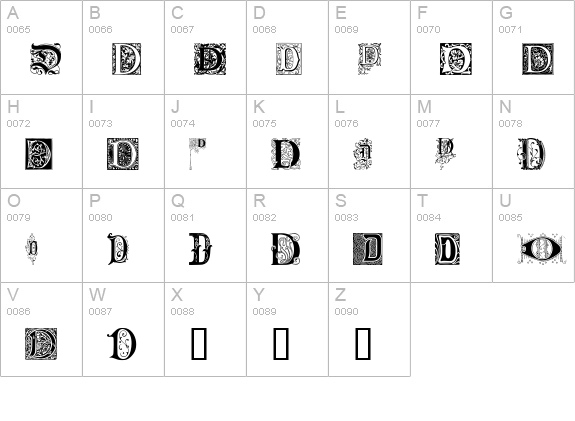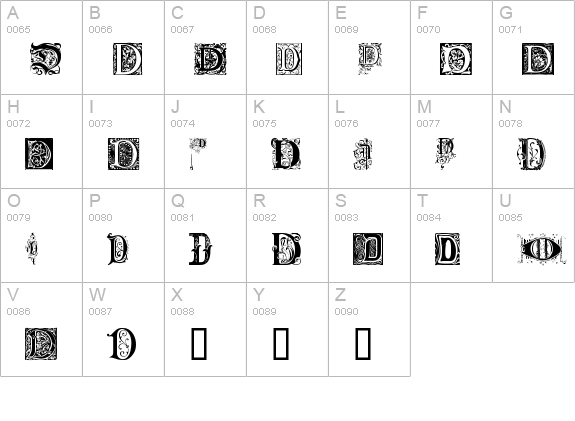
Ornamental Initials D Font Details
Ornamental Initials D font is a captivating and intricate typeface that exudes elegance and sophistication. With its ornate details and stylish design, this font is perfect for adding a touch of luxury to your projects. The elaborate initials create a striking visual impact, making it ideal for use in invitations, logos, and decorative headings. Best of all, Ornamental Initials D font is completely free to download at FontsMarket.com. Whether you're a designer looking to elevate your creations or a hobbyist wanting to add a touch of flair to your personal projects, this font is sure to impress. Don't miss out on the opportunity to enhance your designs with this exquisite typeface, available for free download now.